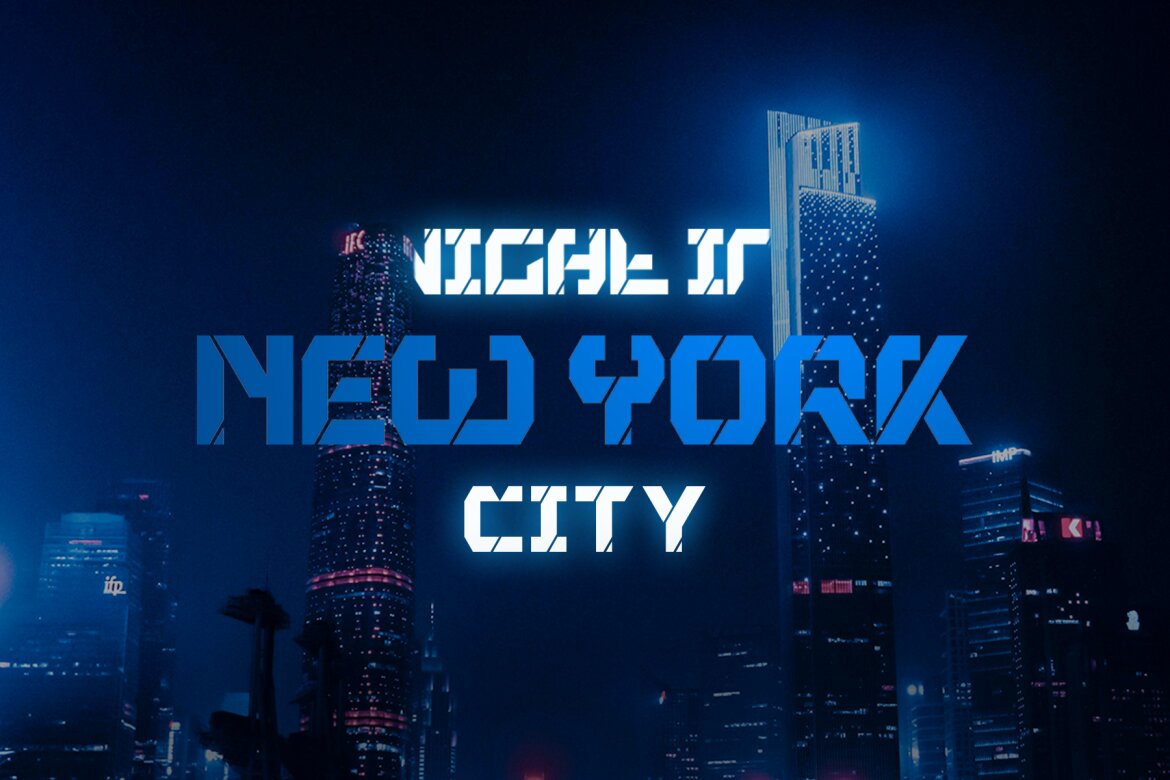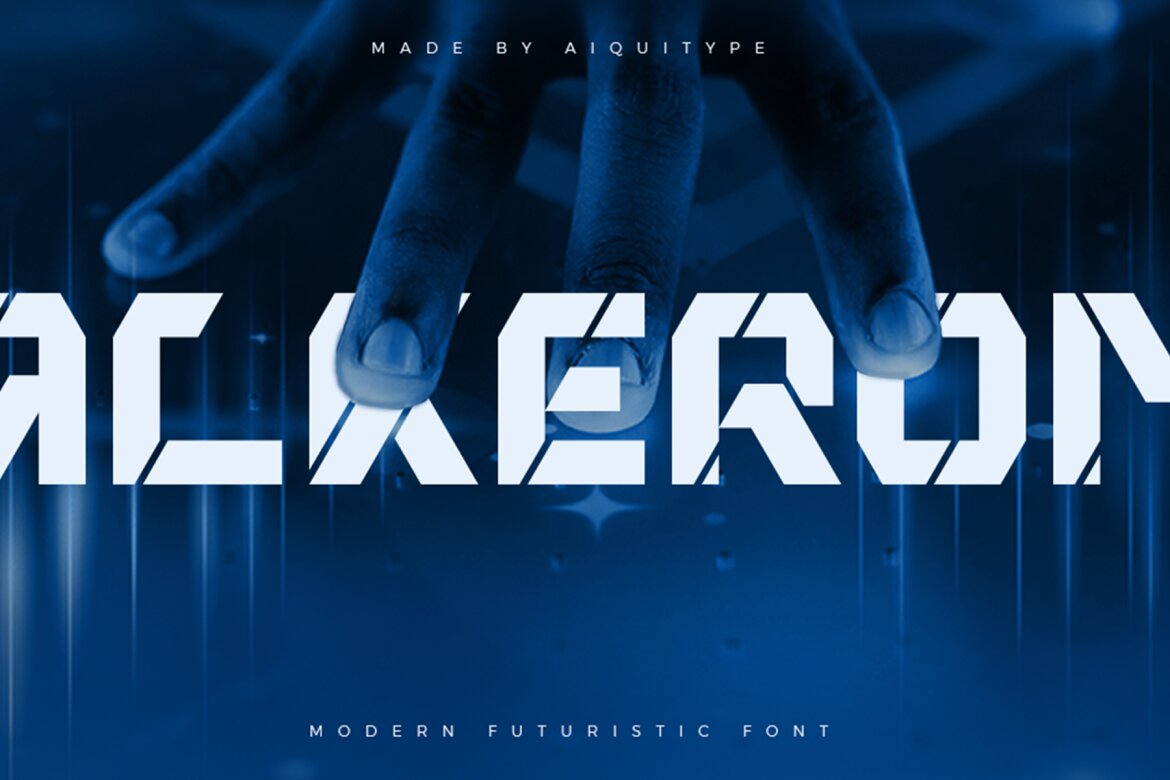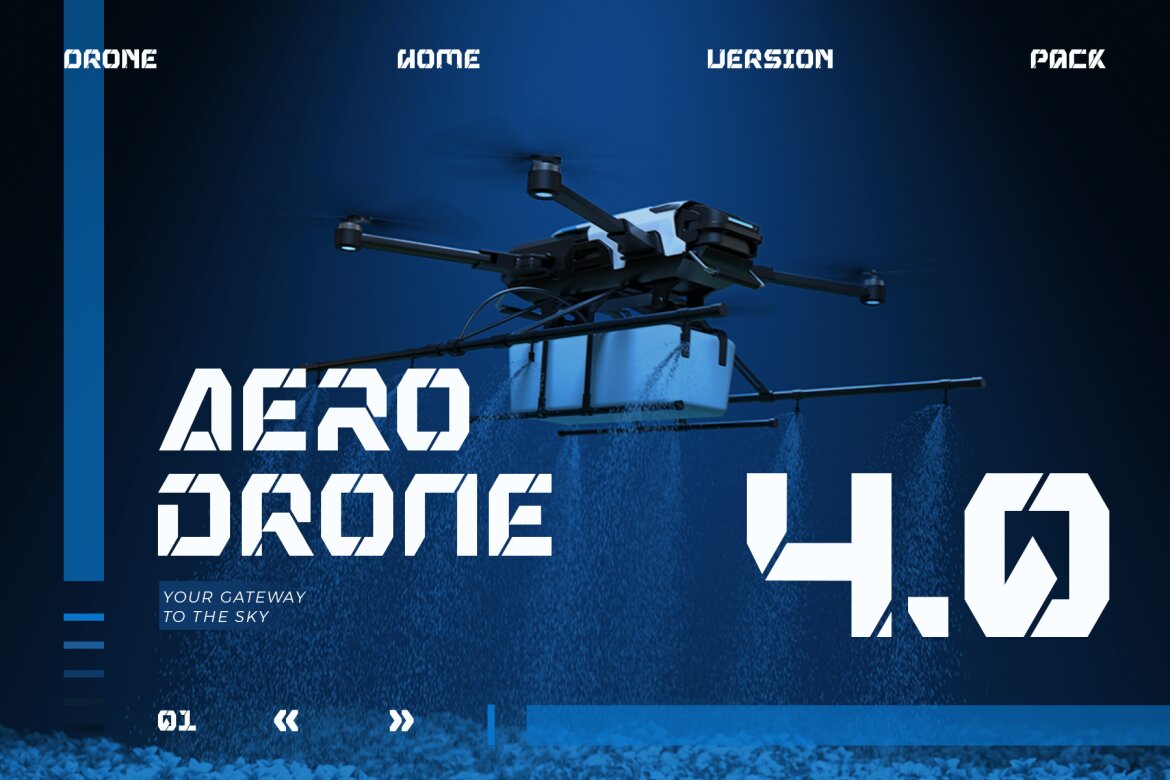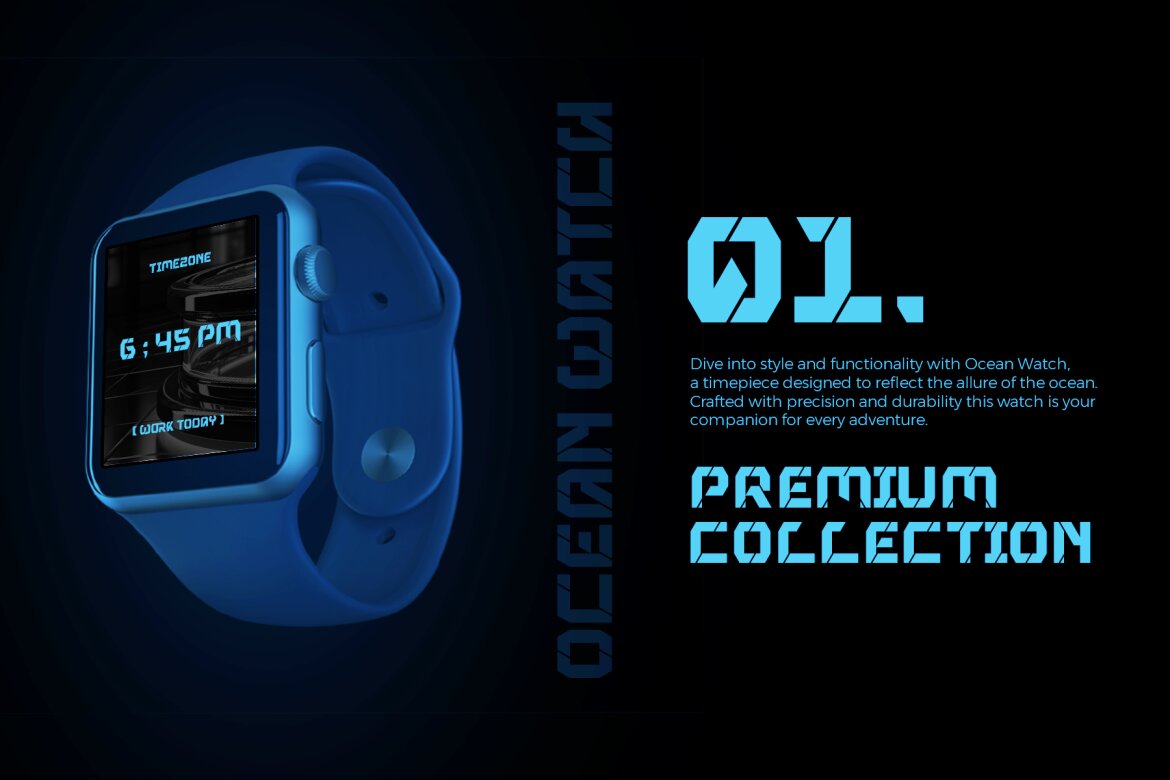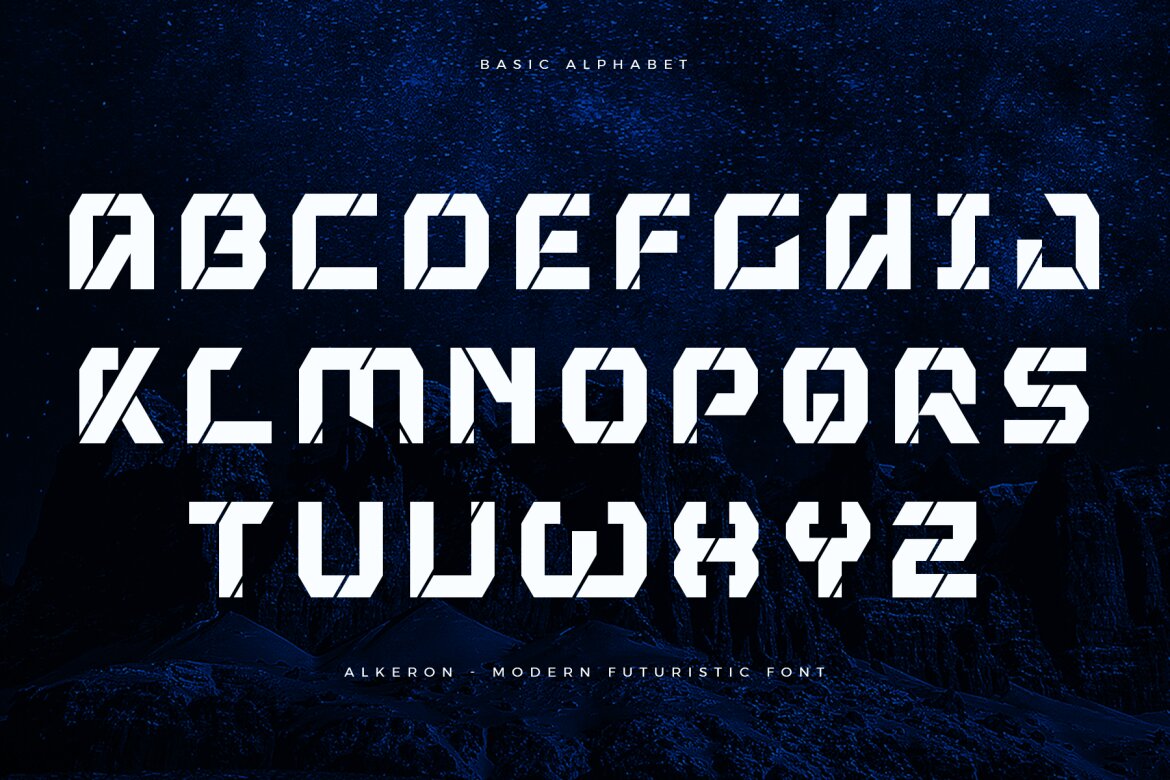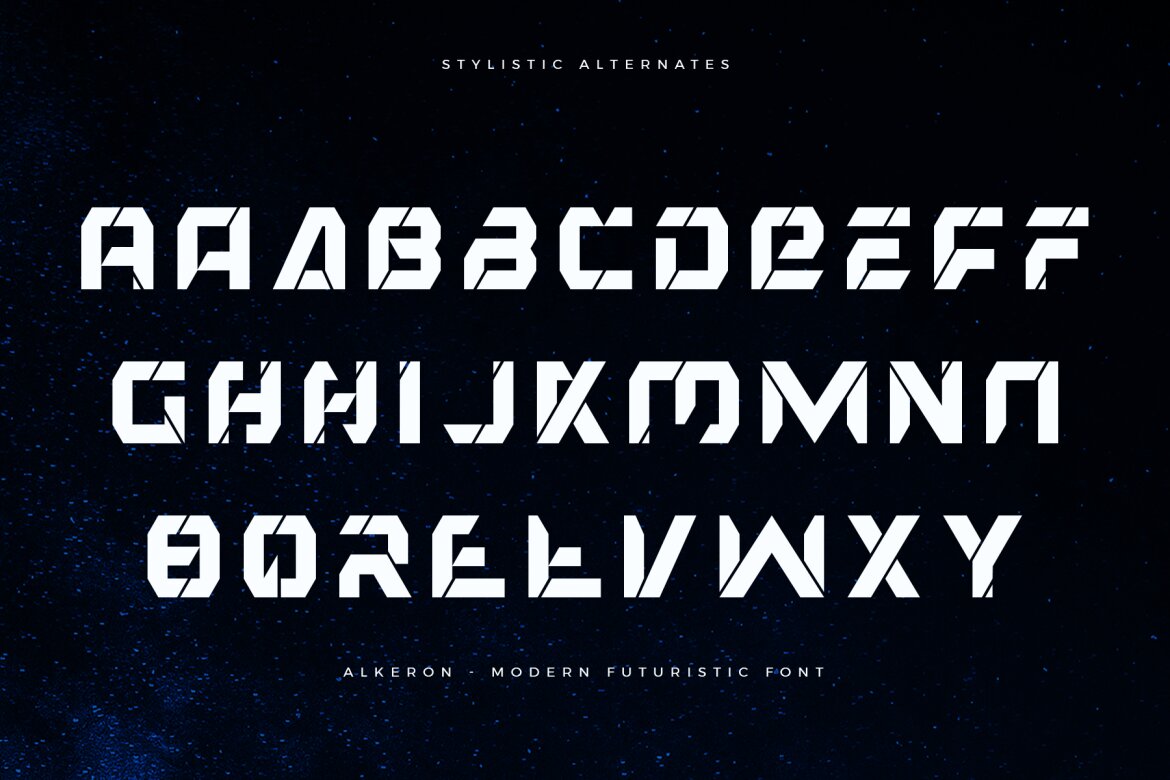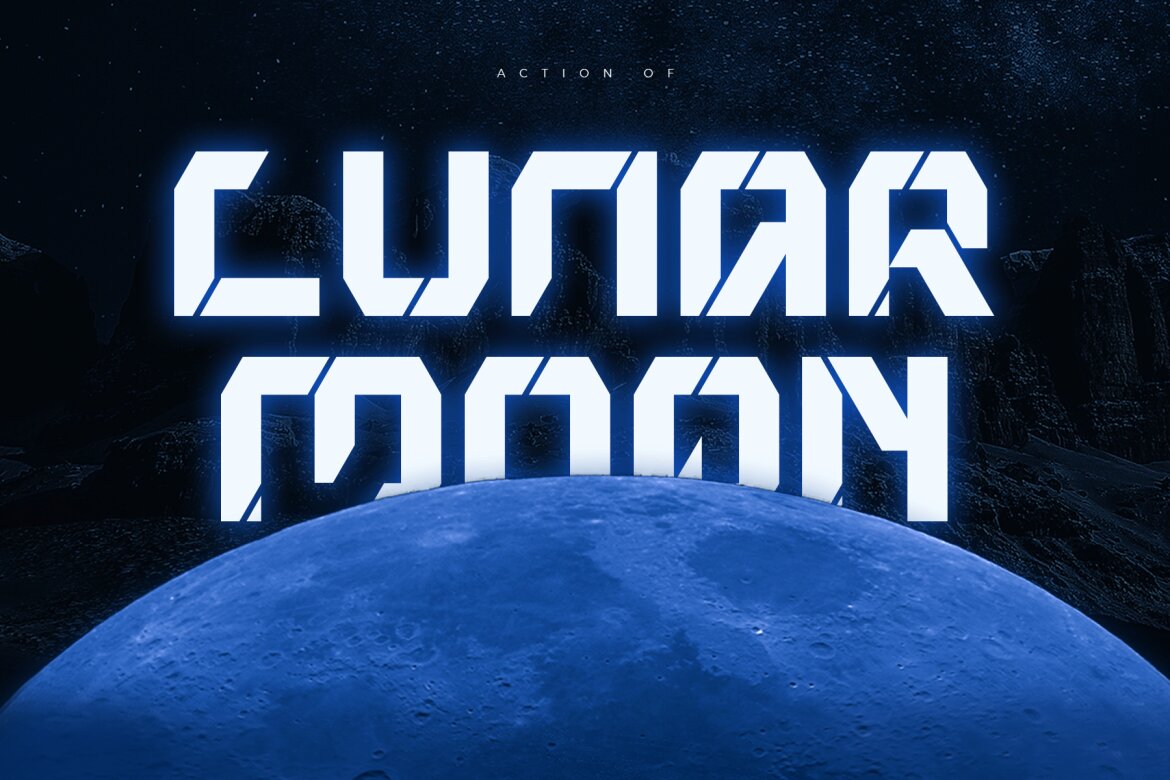
Alkeron - FREE Display Futuristic Font
Alkeron
Introducing Alkeron - Modern Display Futuristic Font, a cutting-edge display font that propels typography into the future. Alkeron embodies the essence of modernity and innovation. Each letter is meticulously crafted to exude a sense of technological advancement and sophistication, making it the perfect choice for projects seeking a futuristic aesthetic. Whether used in branding, digital design, or advertising, Alkeron commands attention and leaves a lasting impression.
Elevate your designs with Alkeron and embrace the boldness of tomorrow.